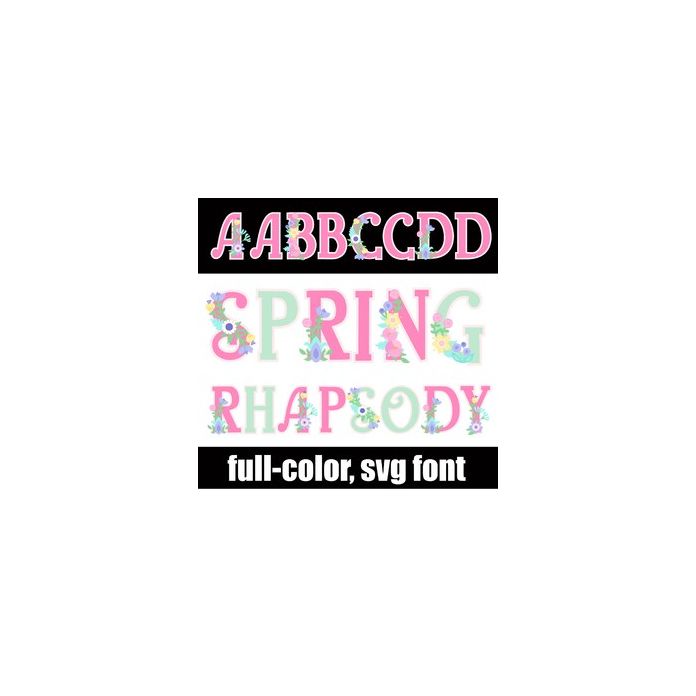
Spring Rhapsody Too Color Font
This full-color font features beautiful florals throughout. There is an alt case in green that you can access through Silhouette's glyph map. This font works best for titles, displays, posters and more. Please note color fonts will show as black in non compatible programs. This font type is compatible with Silhouette Studio.